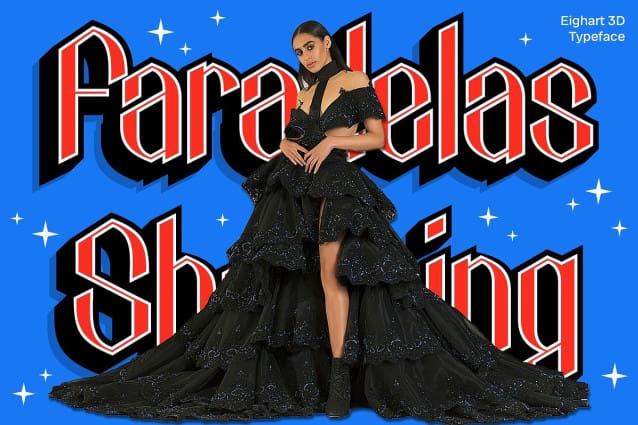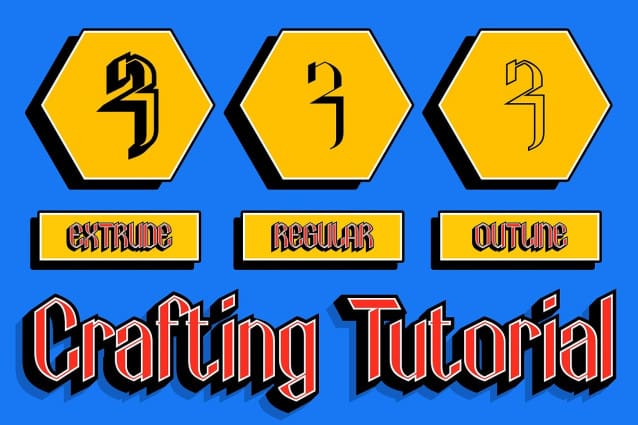
Eighart 3D Font
Eighart 3D Font is a sans serif font with a tech style and a 3D effect, perfect for display purposes. Its futuristic design and three-dimensional appearance make it ideal for projects that require a modern and innovative look.
Inspired by technology and innovation, Eighart 3D features sleek lines and sharp angles that convey a sense of modernity and progress. The 3D effect adds depth and dimension, making the font stand out in any design.
Whether you’re designing a website, poster, or logo, Eighart 3D is sure to make an impression. Its tech style and 3D effect make it perfect for displays that demand attention and convey a sense of innovation and cutting-edge design.
Despite its high-tech appearance, Eighart 3D is versatile and easy to use. The font works well in both large and small sizes, making it suitable for a variety of applications. With its blend of tech style and 3D effect, Eighart3D adds a modern and dynamic touch to any design.